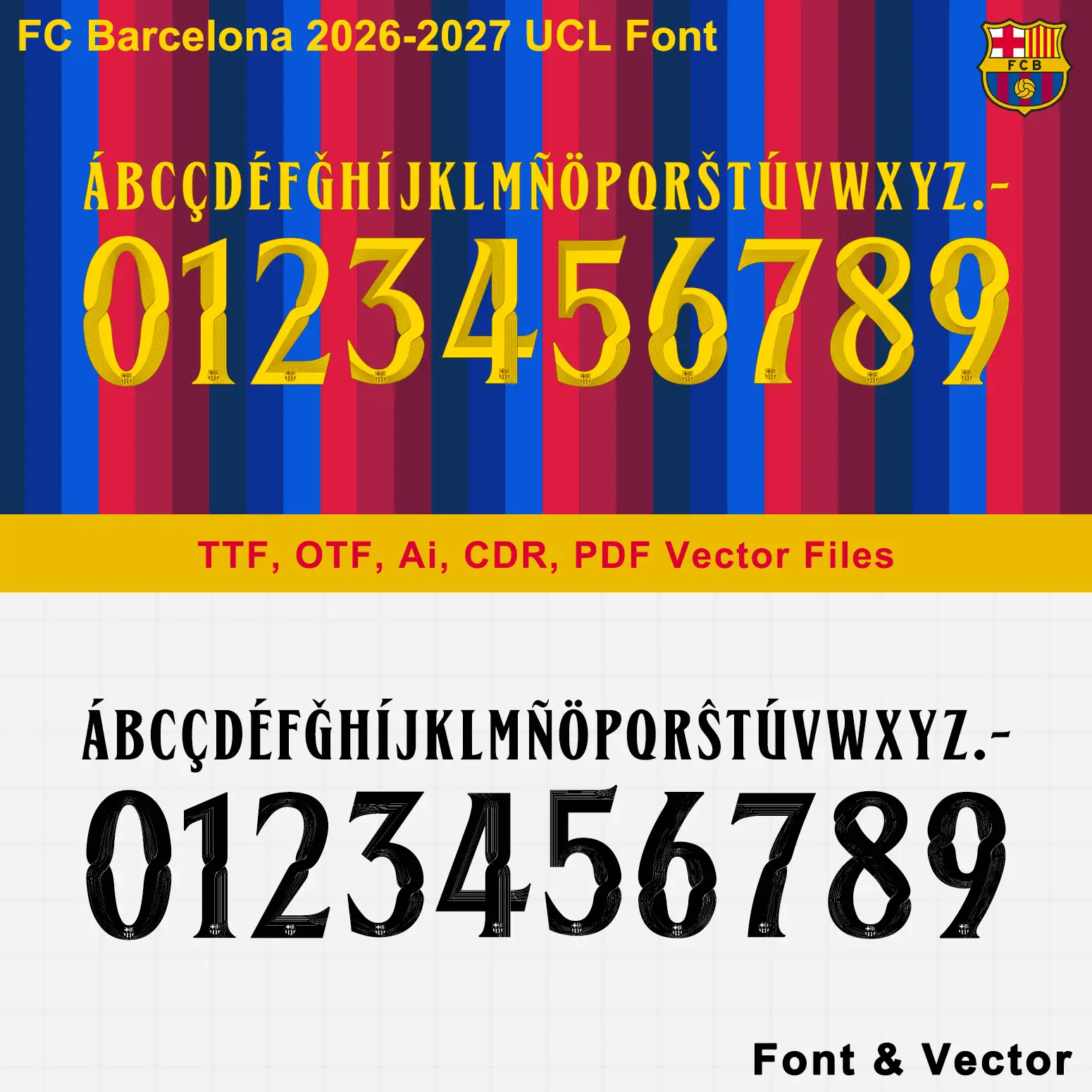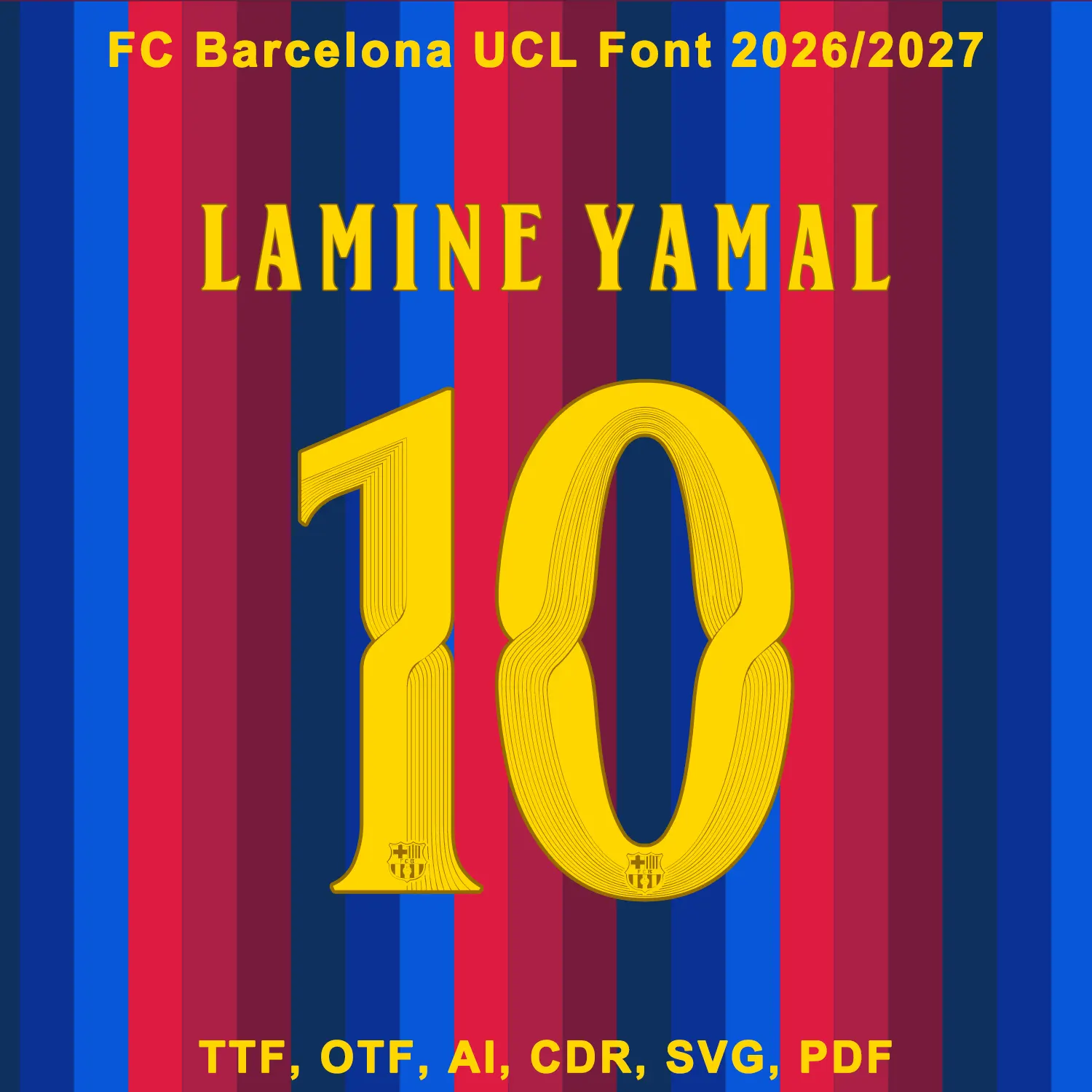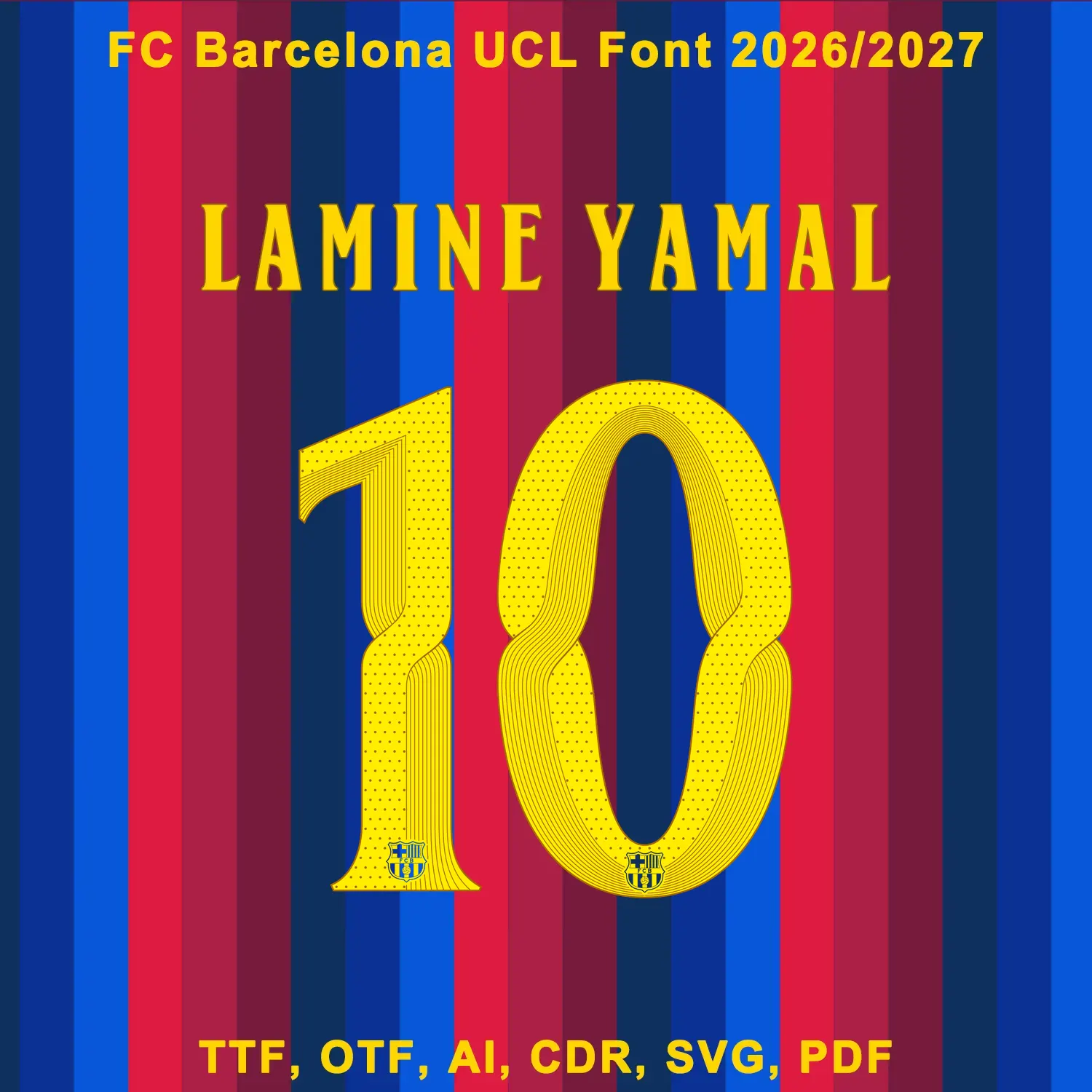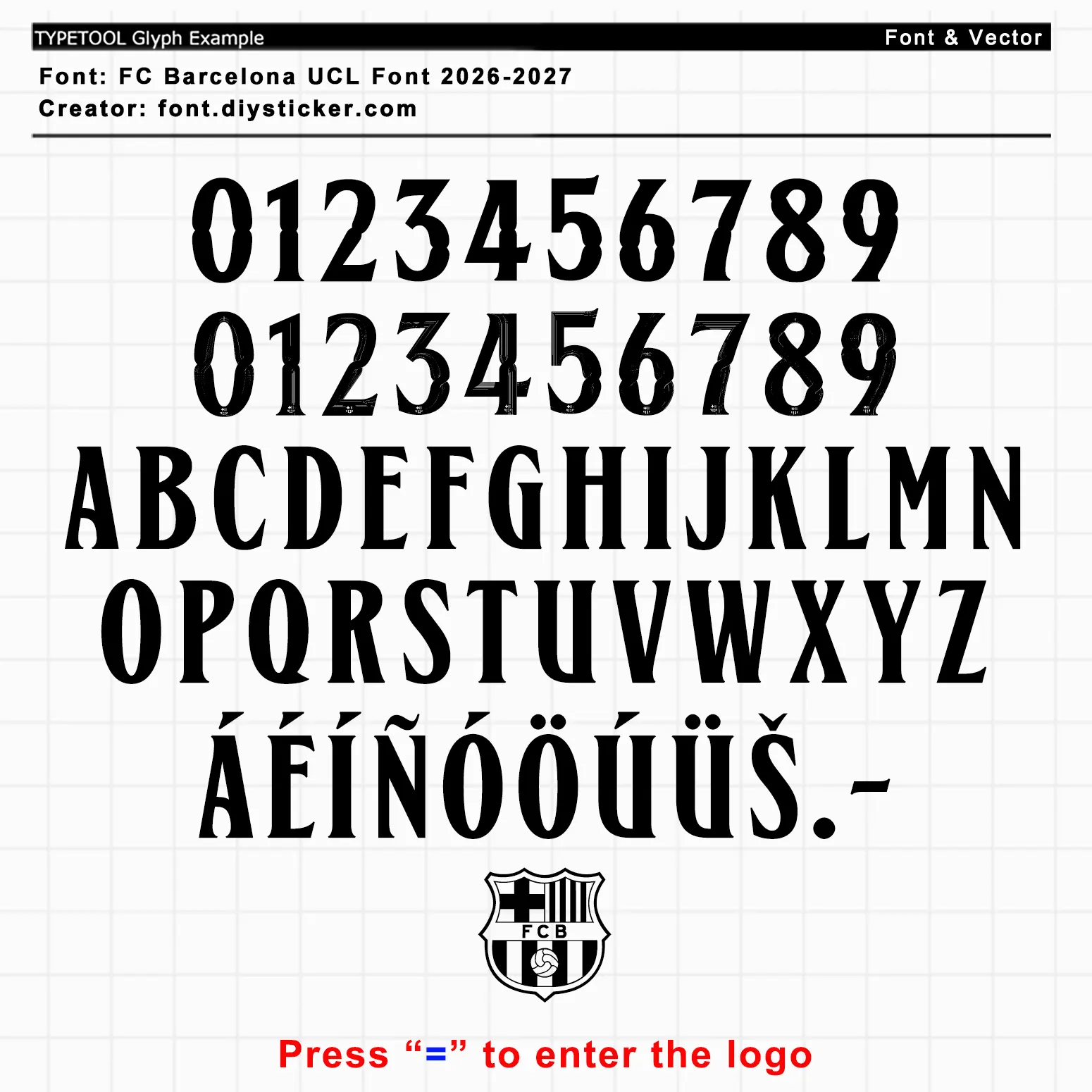
Grab the authentic FC Barcelona 2026-2027 UCL Font for custom Blaugrana Champions League jersey design and print work. This fully digital typography pack replicates the official UCL match kit lettering, available for instant download right after checkout.
FC Barcelona 2026-2027 UCL Font | Official Blaugrana Champions League Typography
The FC Barcelona 2026-2027 UCL Font is an exact digital replica of the official jersey typography used by FC Barcelona for the 2026-2027 UEFA Champions League campaign. Developed for print studios, kit restorers and custom apparel designers, this font features elegant vintage serif letter shapes, multi-layer brushed gold textured numerals, tiny embedded FCB club crest marks at the base of every number, and a full set of Spanish & European diacritic accented characters to fit all official Barca player names. The official FC Barcelona crest glyph can be instantly accessed by pressing the “=” key within TTF/OTF font files, optimized for the iconic blaugrana vertical stripe home jersey base.
Whether you are recreating vintage UCL replica jerseys, crafting personalized fan kits, or preparing bulk vinyl cut orders for Champions League supporters, this complete font set delivers sharp, print-ready vector characters with perfectly matched official kerning and proportional styling.